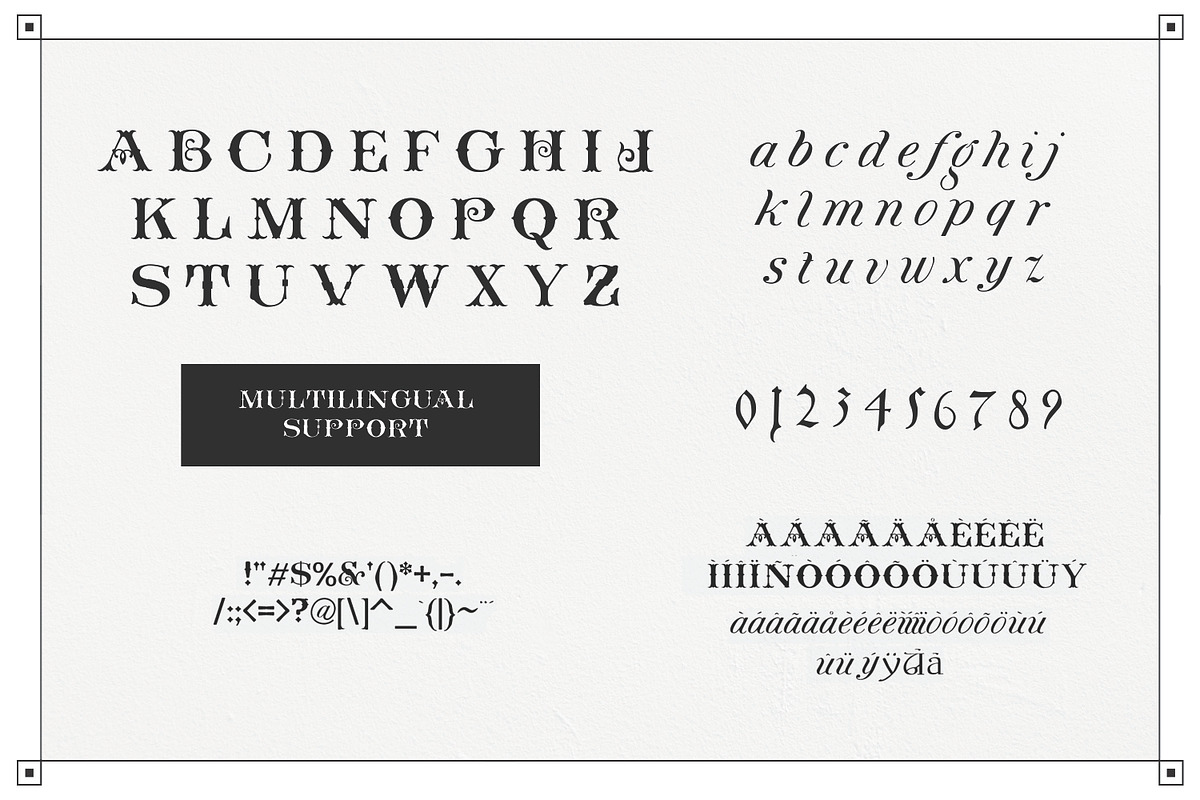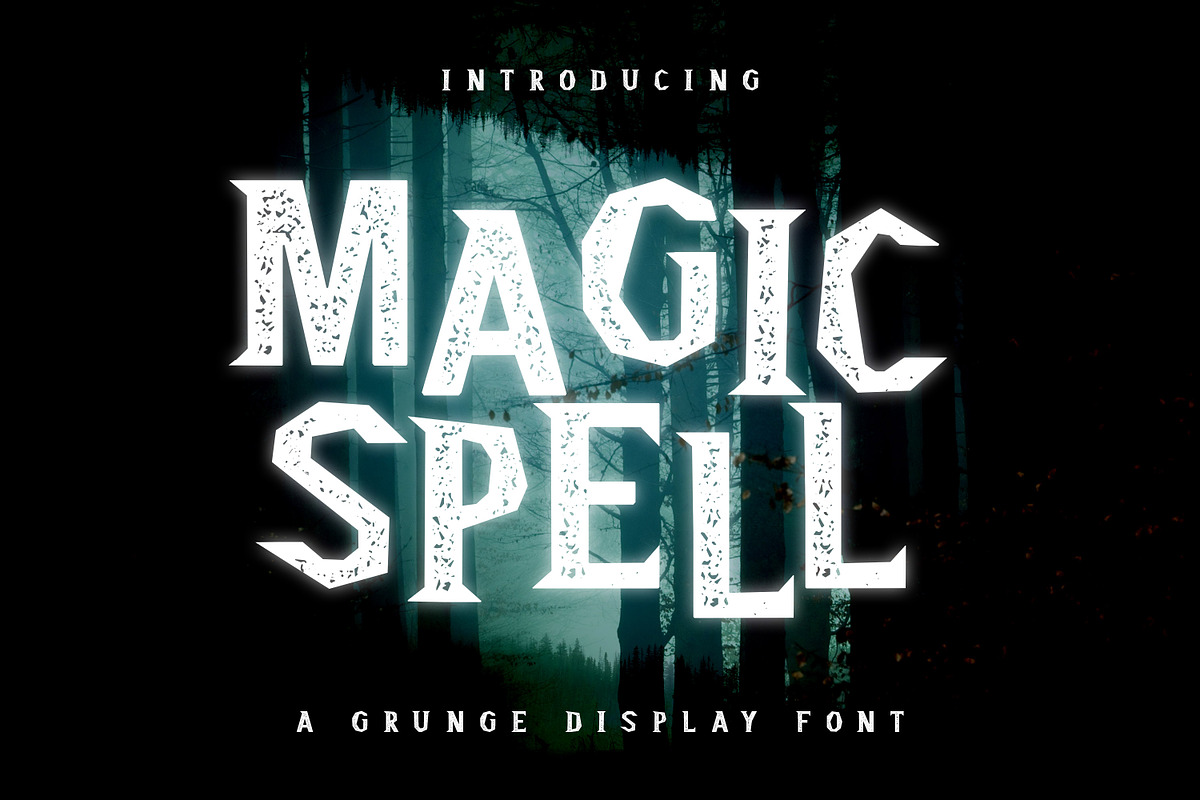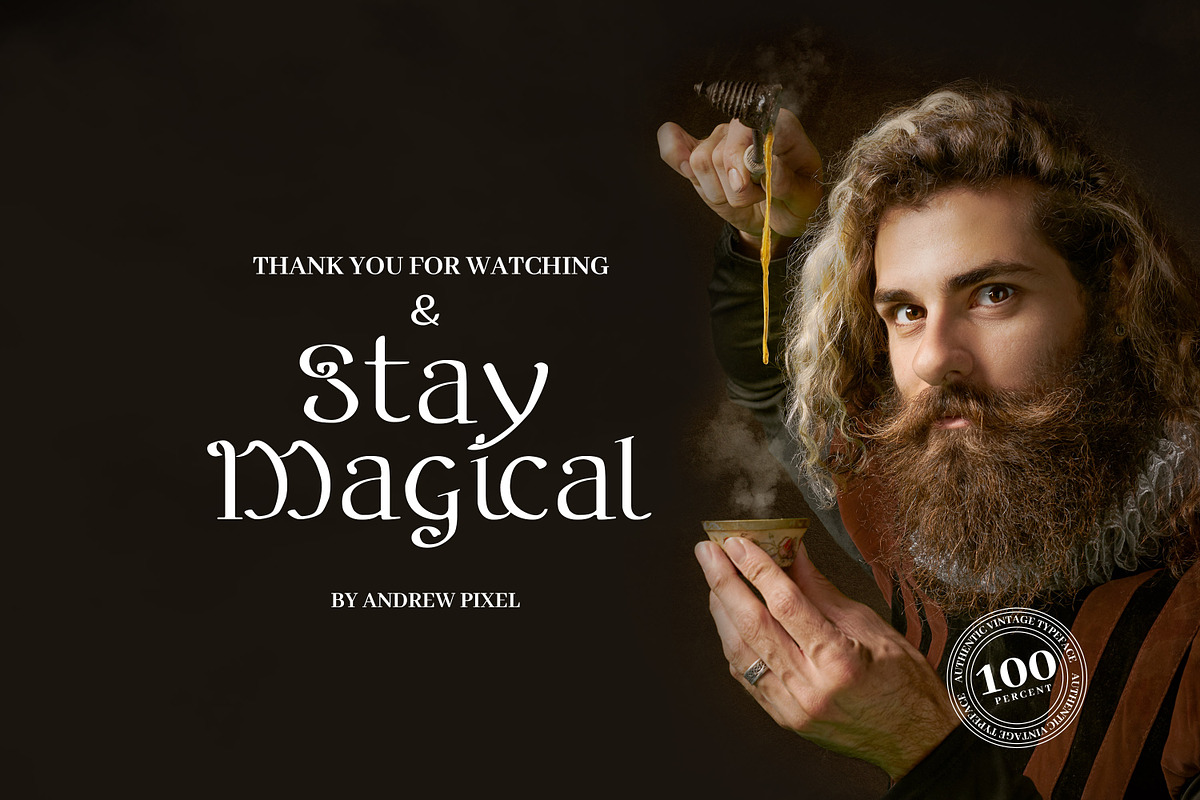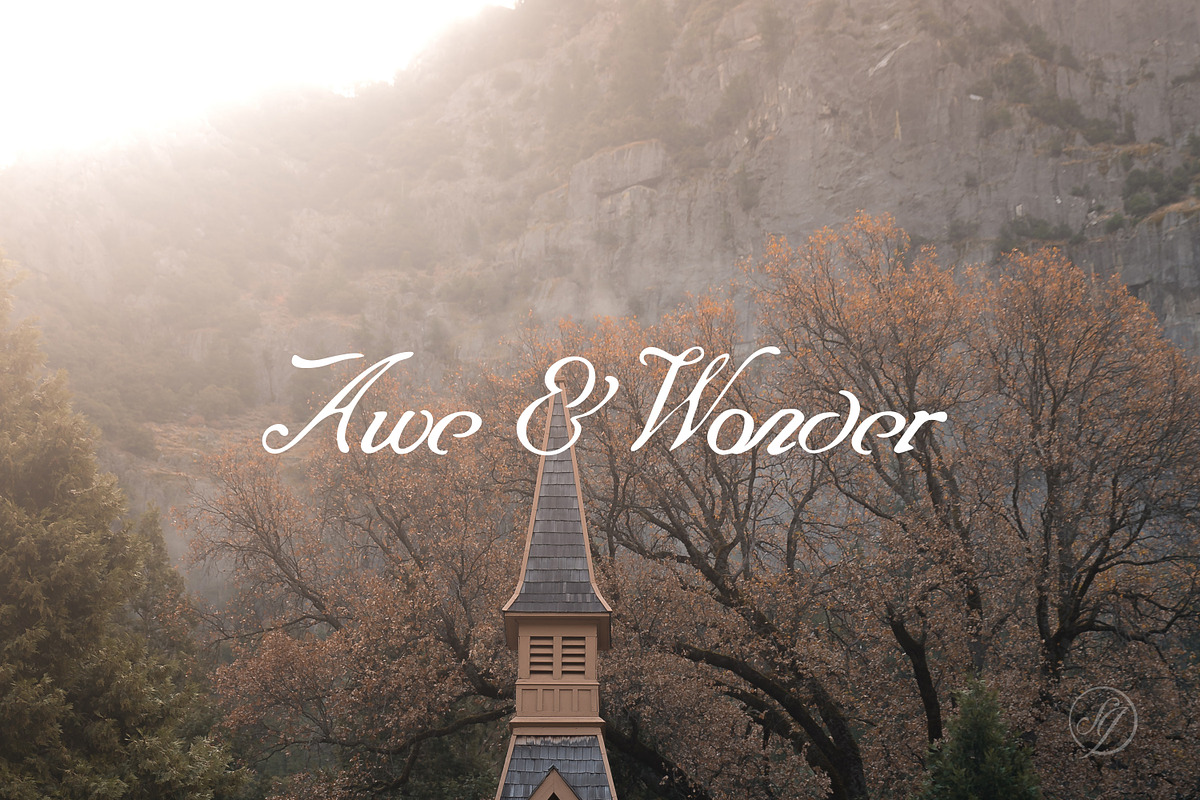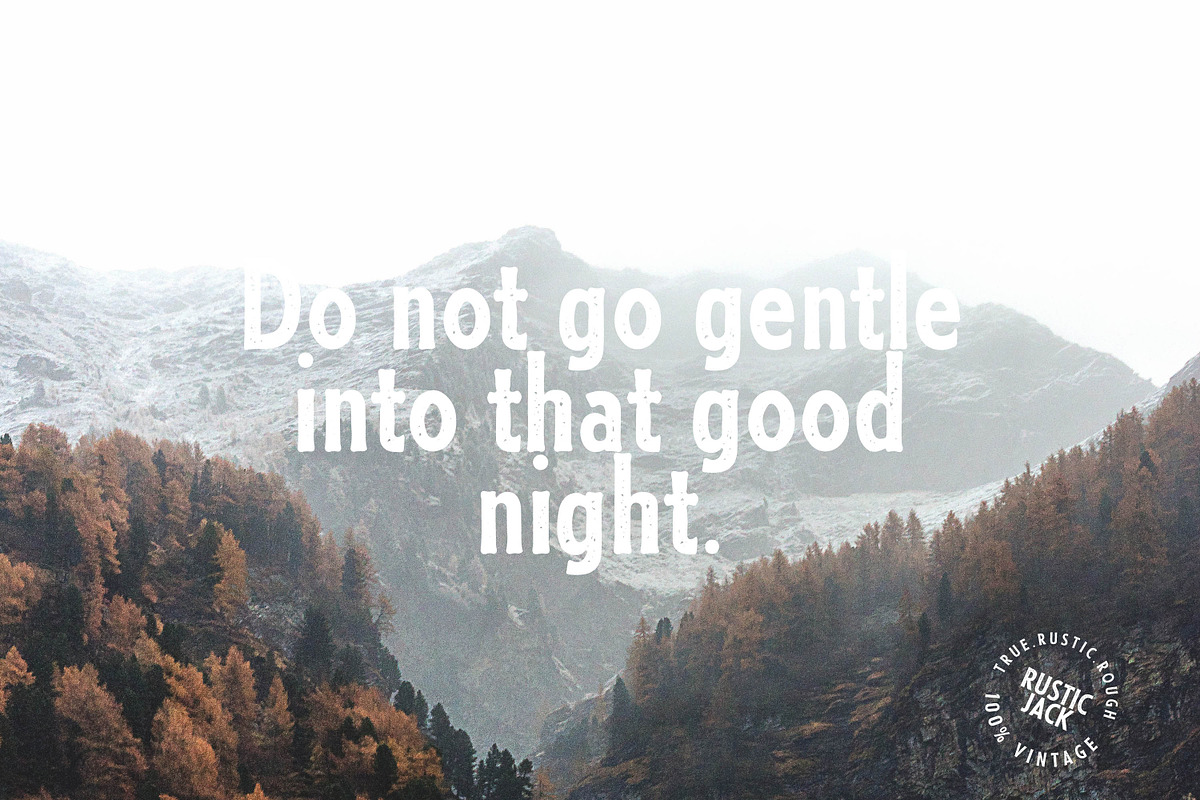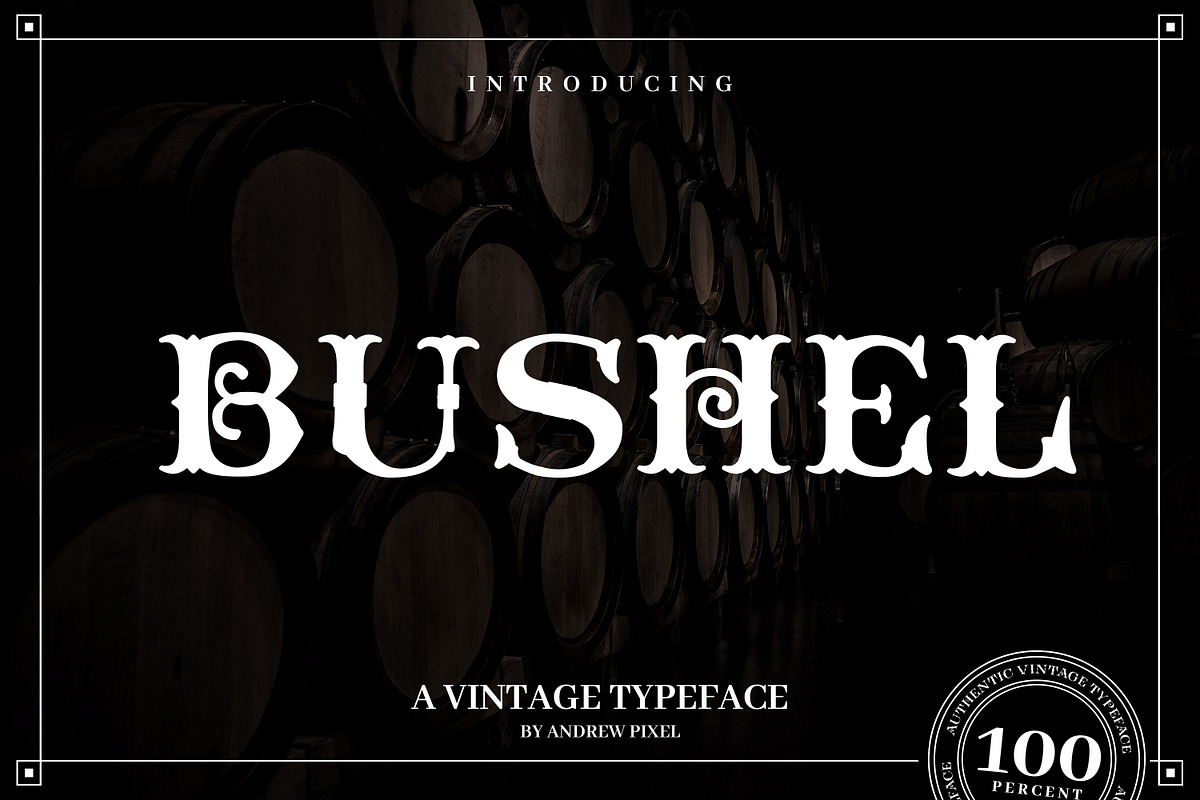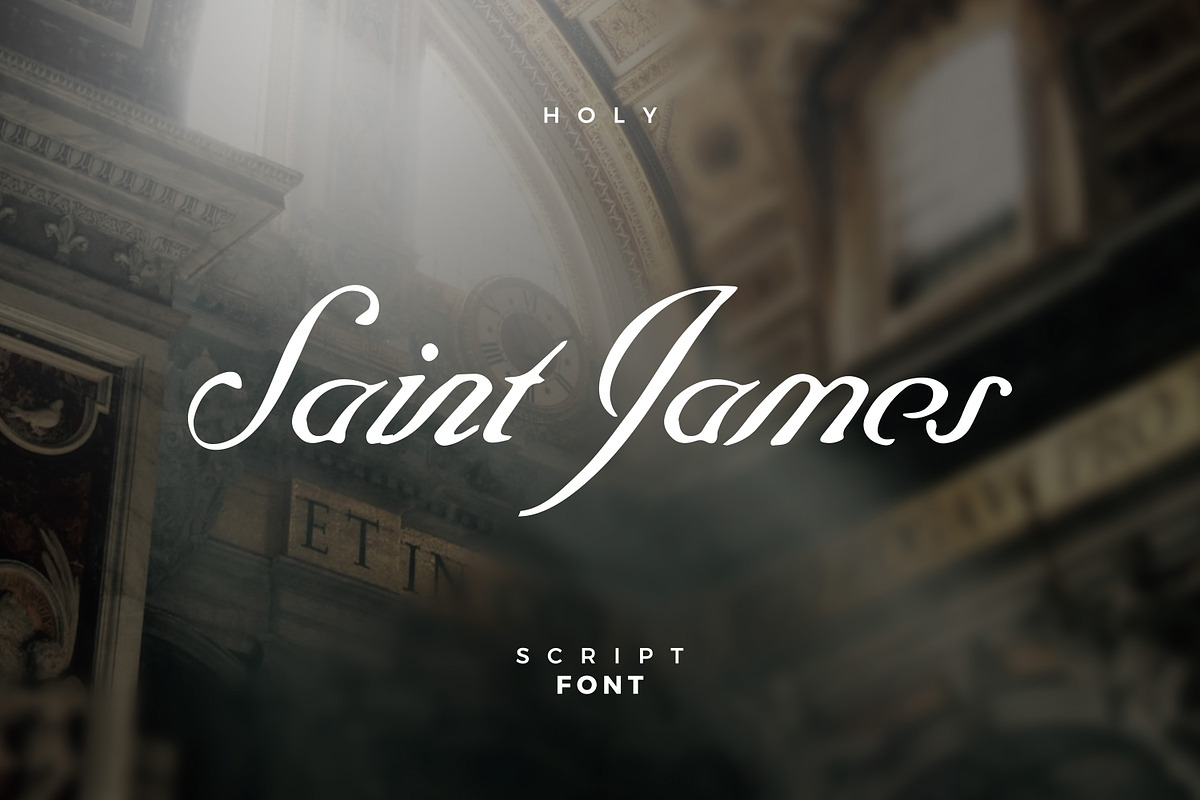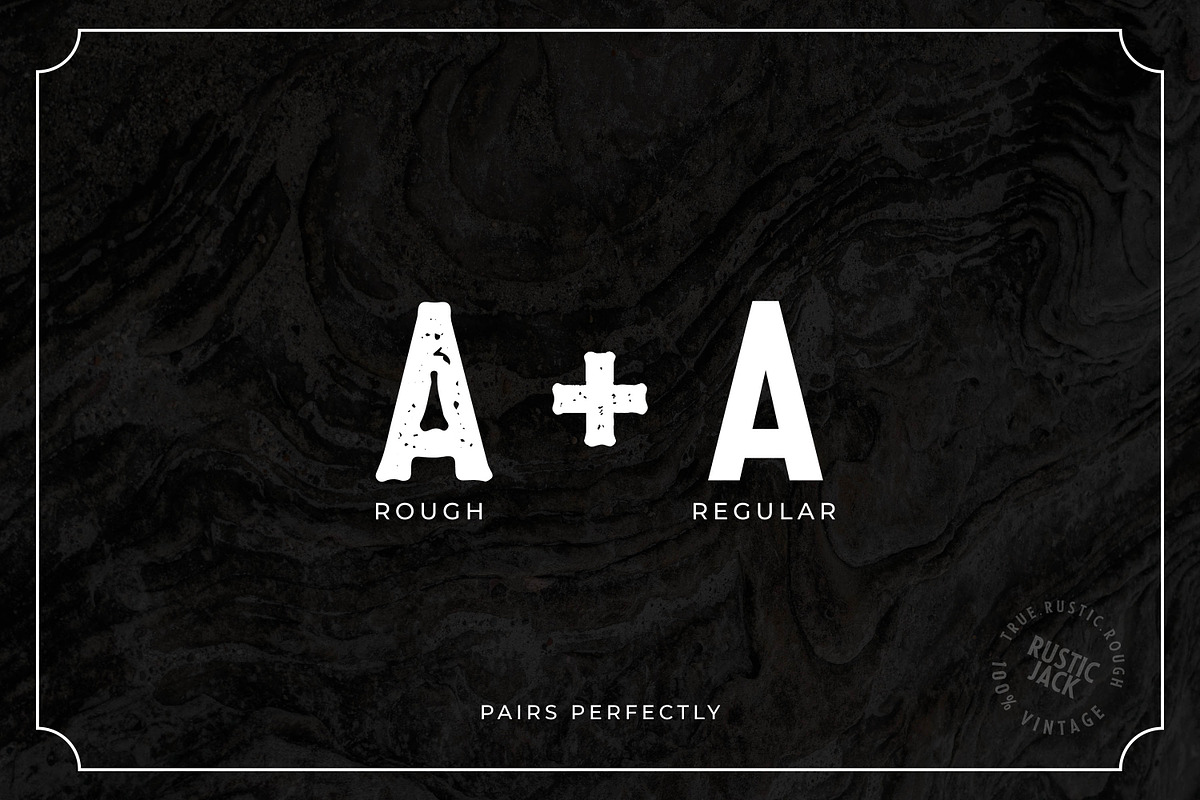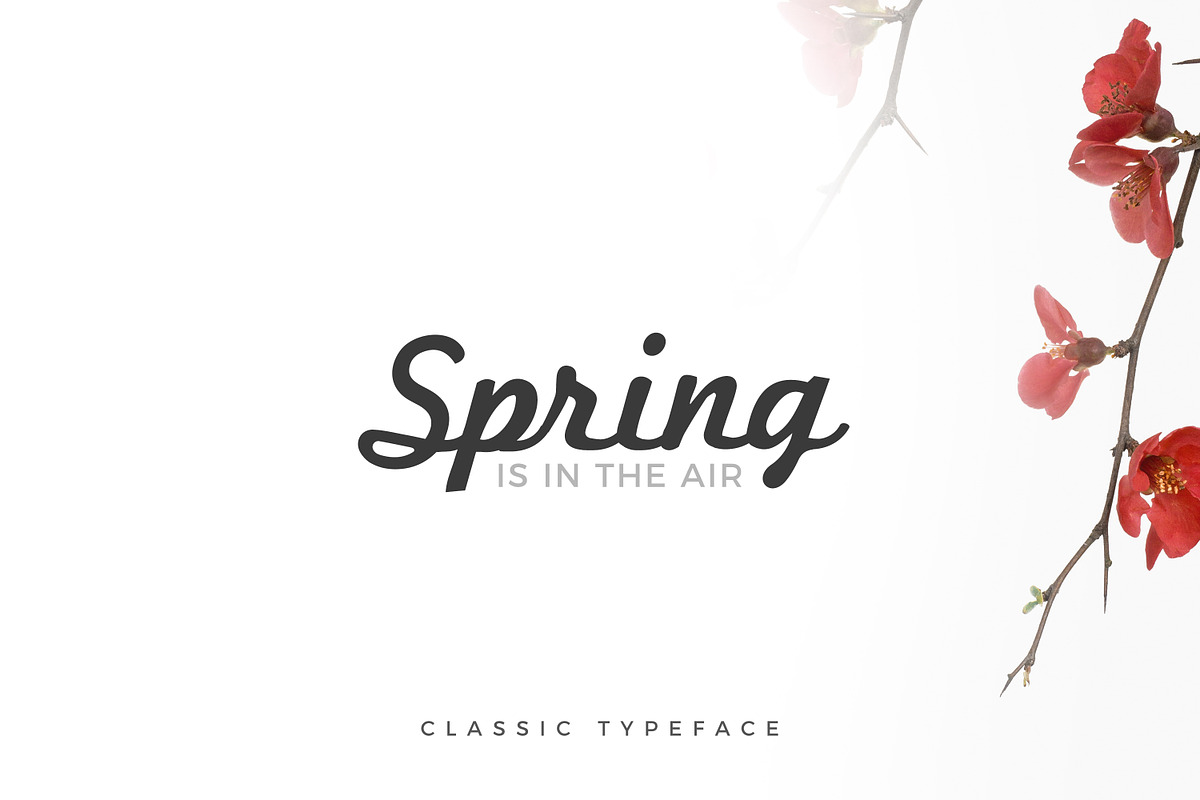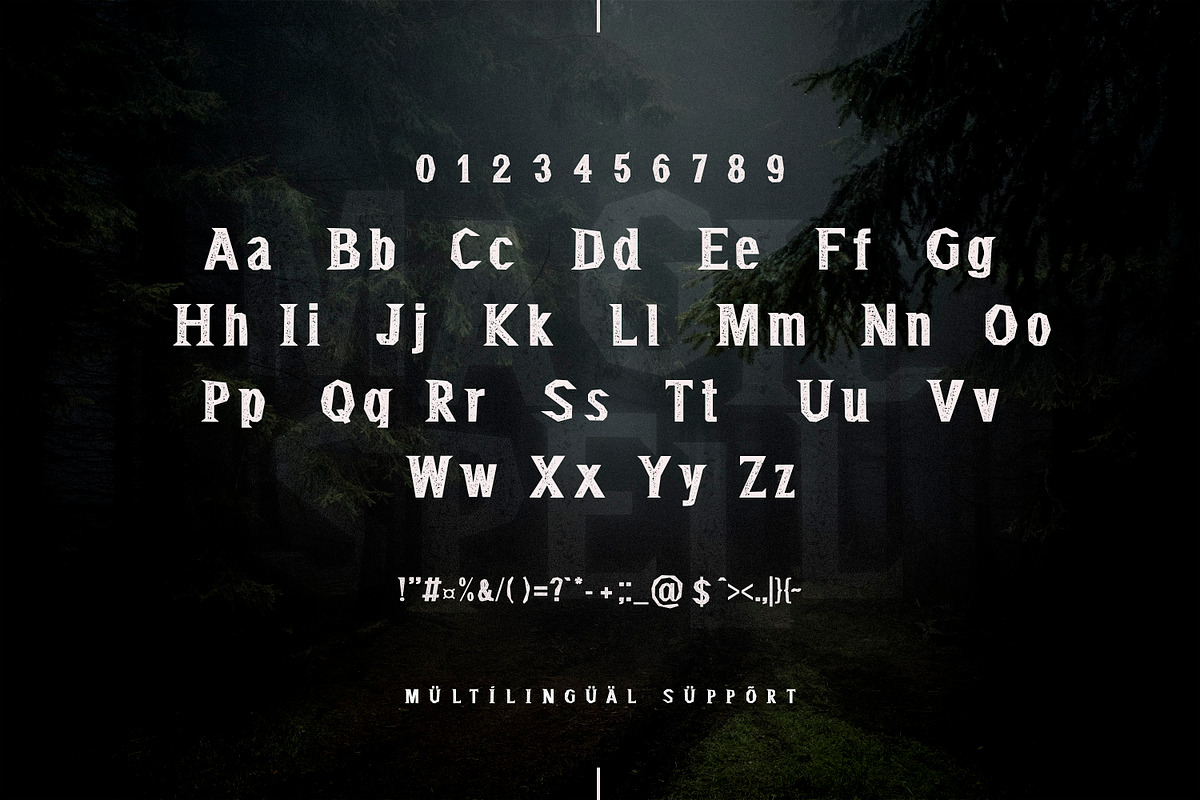
Introducing Mystical font bundle
A bundle of 9 vintage and mystical fonts in one single collection. You'll get a selection of serif, sans-serif, display and script fonts that suit perfectly for all kinds of creative endevors - crate logos, lockups, posters, flyers, signs, t-shirts and so much more!
Alchemy Magical Display Font - https://creativemarket.com/andrewdesign/3649556-Alchemy-A-Magical-Typeface
Bushel - A vintage Flourish Font - https://creativemarket.com/andrewdesign/3648240-Bushel-A-vintage-Flourish-Font
Misty Meadow - Mystical Serif Font - https://creativemarket.com/andrewdesign/3590795-Misty-Meadow-Mystical-Serif-Font
Fiver - Multiline Display Font - https://creativemarket.com/andrewdesign/3395240-Fiver-Multiline-Display-Font
Heleen Script Font - https://creativemarket.com/andrewdesign/3390741-Heleen-Script-Font
Saint James /The Blessed Script Font - https://creativemarket.com/andrewdesign/3340360-Saint-James-The-Blessed-Script-Font
Xavier - Vintage Display Font - https://creativemarket.com/andrewdesign/3729686-Xavier-Vintage-Display-Font
Rustic Jack - A Vintage Font Duo - https://creativemarket.com/andrewdesign/3729693-Rustic-Jack-A-Vintage-Font-Duo?published
Magic Spell - Magical Grunge Display - https://creativemarket.com/andrewpixel/4549546-Magic-Spell-Magical-Grunge-Display